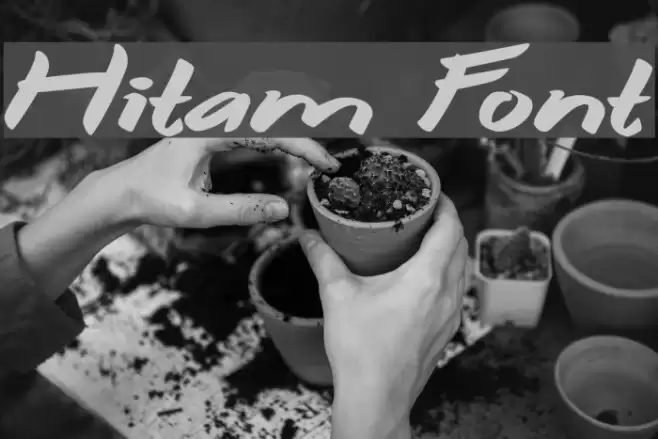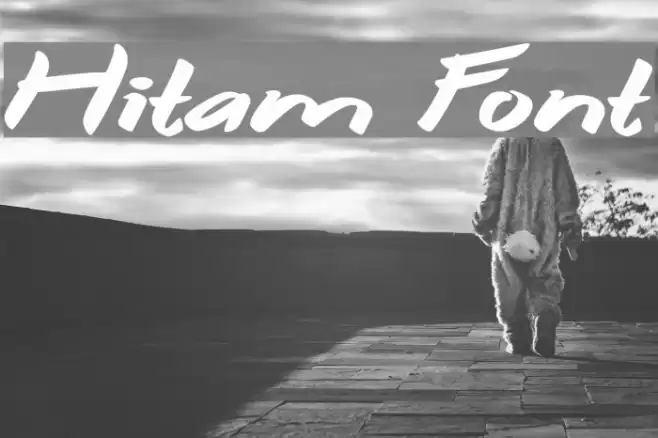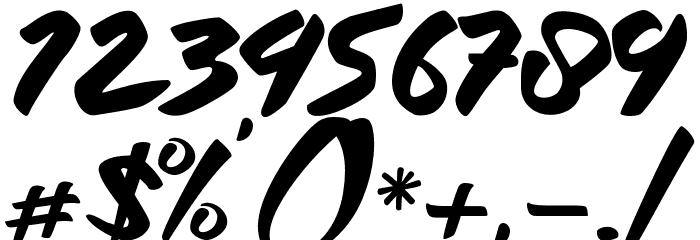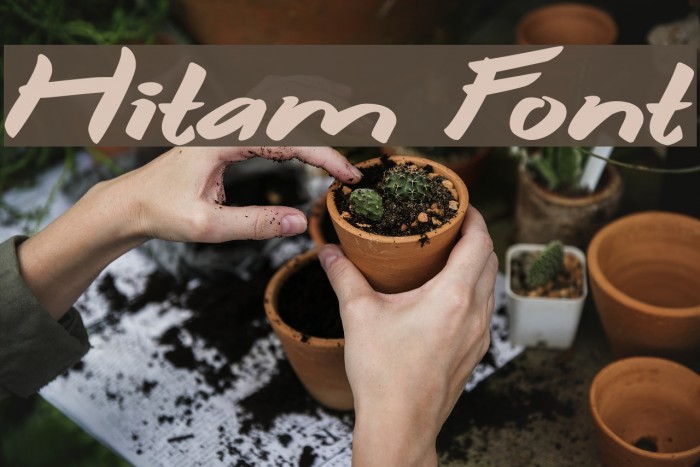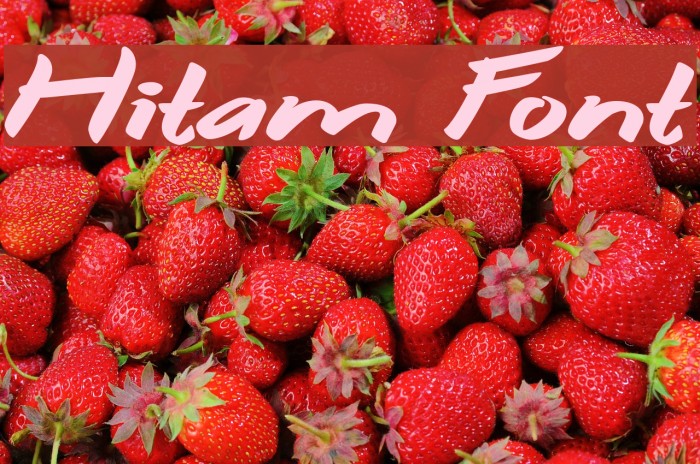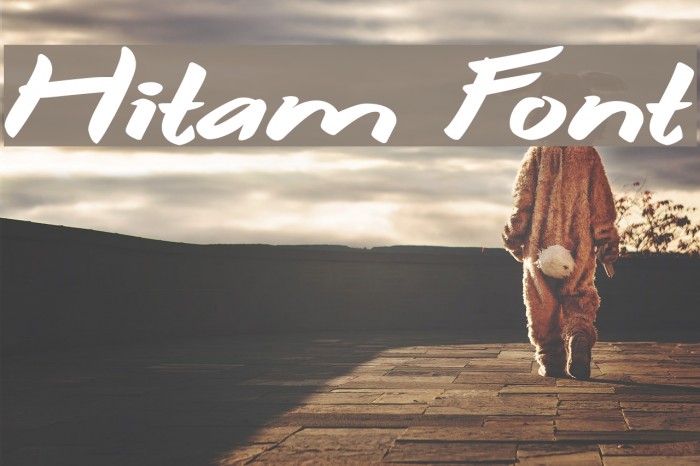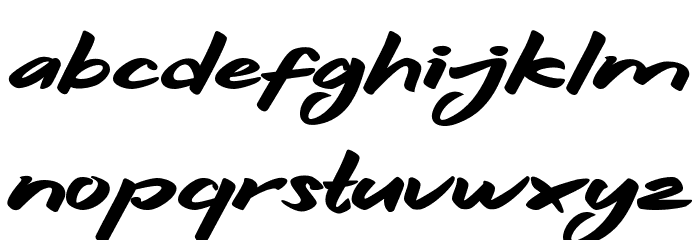
Hitam Font
Hitam Description
This font exhibits a bold, dynamic script style with a handwritten appearance. The characters are fluid and connected, giving a sense of motion and energy. The uppercase letters are slightly slanted, adding to the casual and informal feel. The lowercase letters maintain a consistent flow, with some characters featuring loops and curves that enhance the overall aesthetic. The numerals are bold and slightly rounded, matching the style of the letters. Special characters are integrated seamlessly, maintaining the font's cohesive look. This font is ideal for projects that require a personal touch or a sense of creativity and spontaneity.
A bold, dynamic script font with a handwritten, energetic style from Uncategorized fonts.
- Proposed Projects: Ideal for branding, invitations, greeting cards, and creative projects that require a personal touch.
- Overall Style: Modern, Decorative
- Use Case: Logos, Headlines, Creative projects